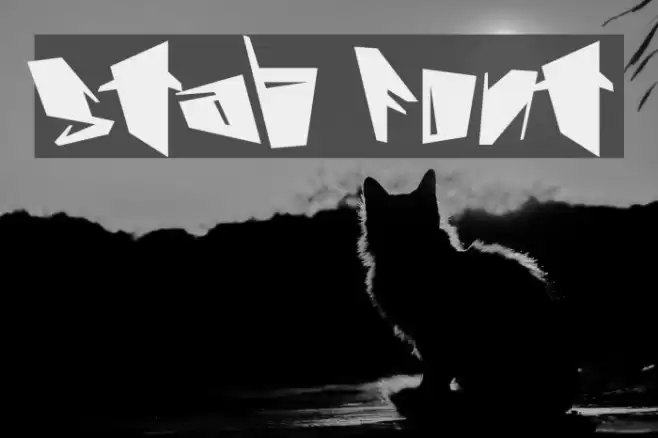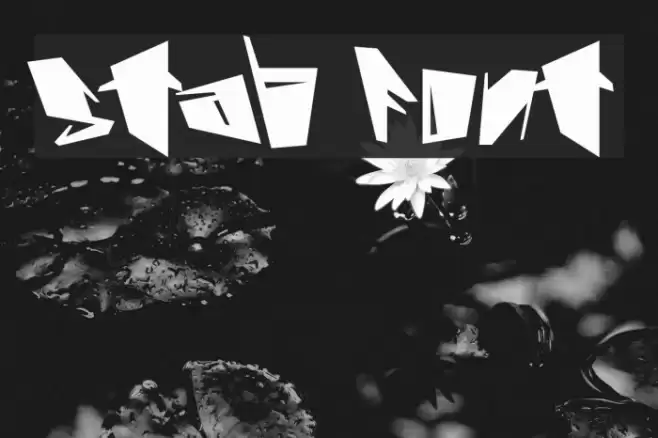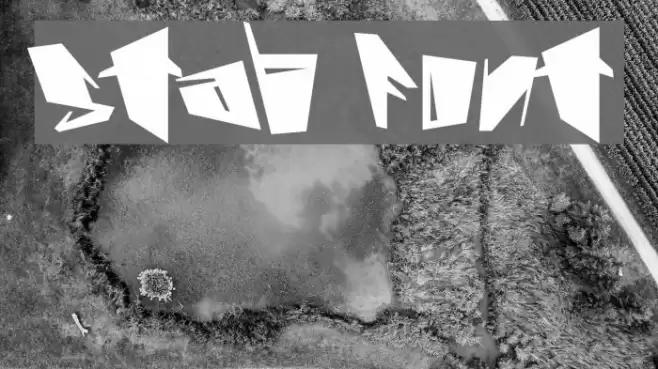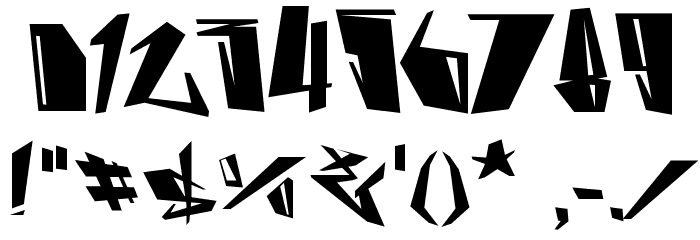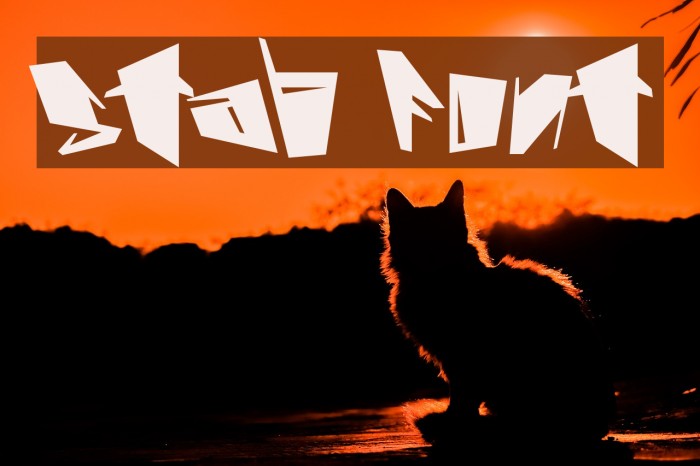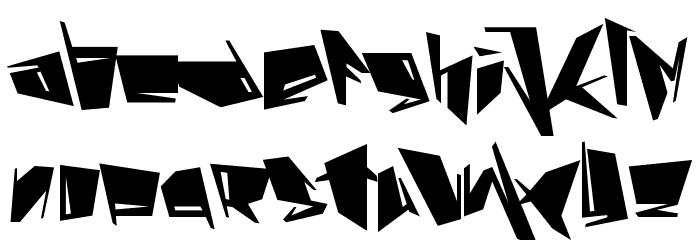
Stab Font
Stab Description
This font features a highly angular and geometric design, characterized by sharp edges and bold, jagged forms. The letters are constructed with a sense of movement and aggression, making them appear dynamic and edgy. Each character is distinct, with exaggerated angles and a sense of asymmetry that adds to the overall chaotic aesthetic. The font's style is reminiscent of graffiti or urban street art, with a rebellious and unconventional vibe. The uppercase and lowercase letters maintain a consistent style, while the numbers and special characters follow the same angular theme, ensuring a cohesive look across all elements.
A bold, angular font with a dynamic, graffiti-inspired style from Graffiti fonts.
- Proposed Projects: Ideal for urban-themed posters, edgy branding, music album covers, or any project requiring a bold, unconventional typeface.
- Overall Style: Modern, Urban